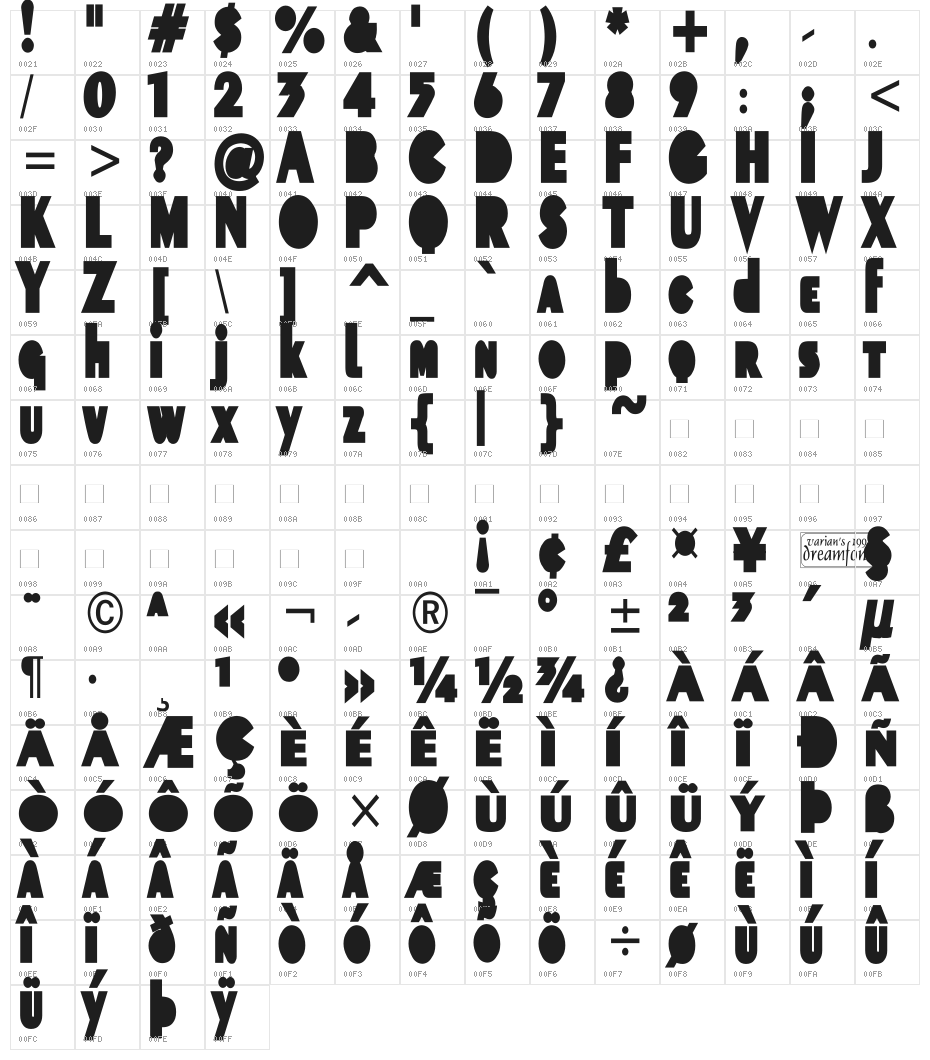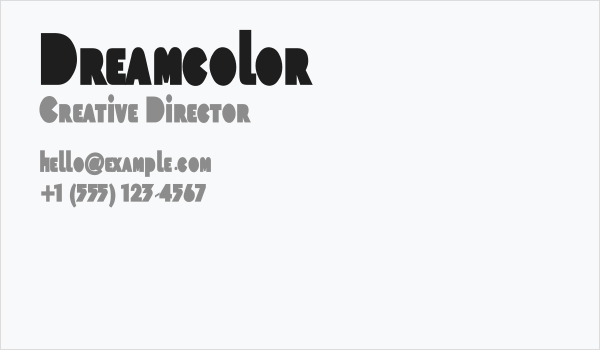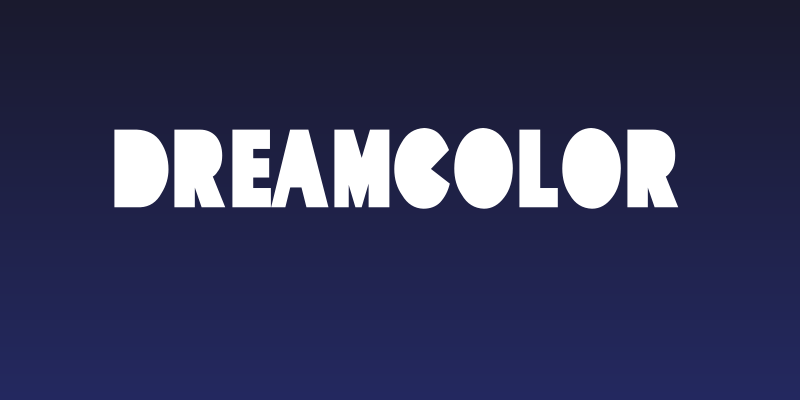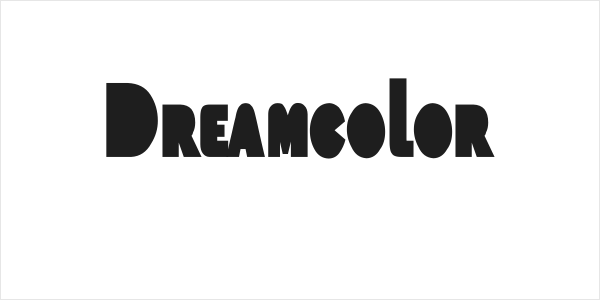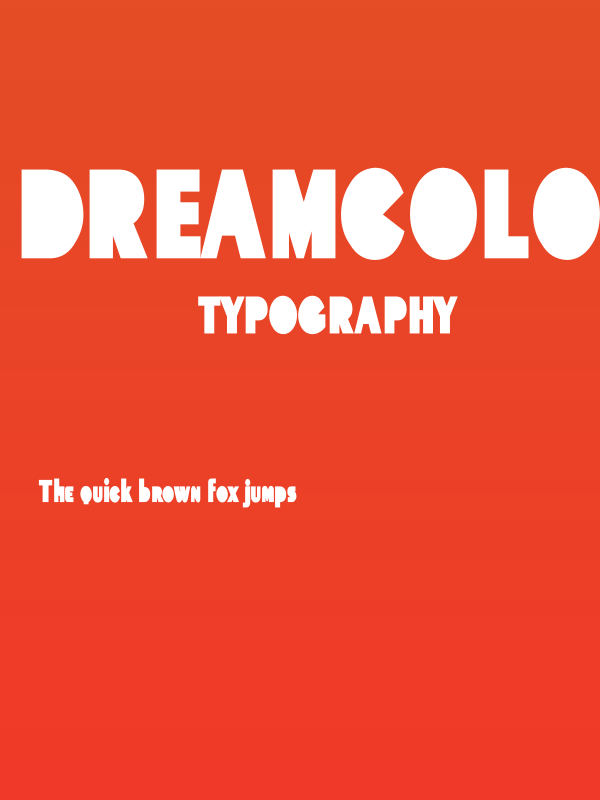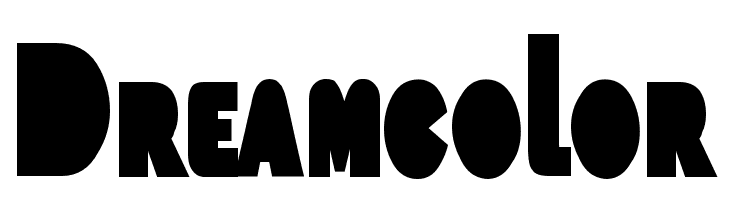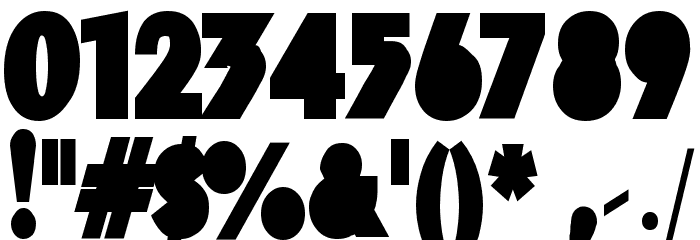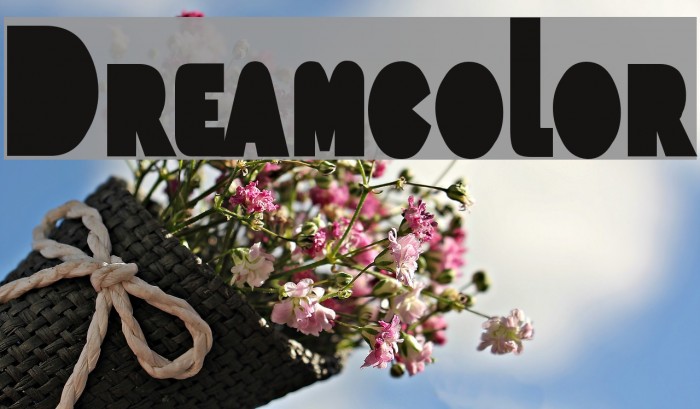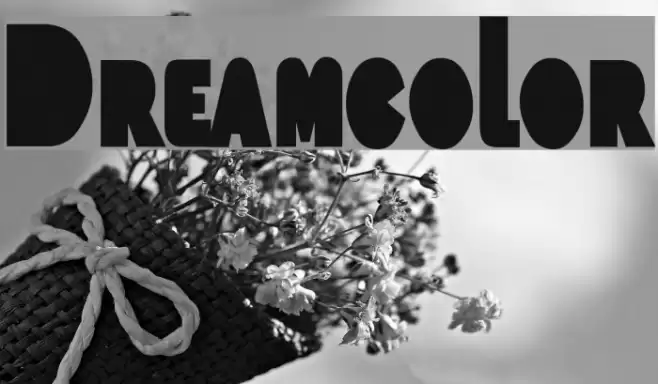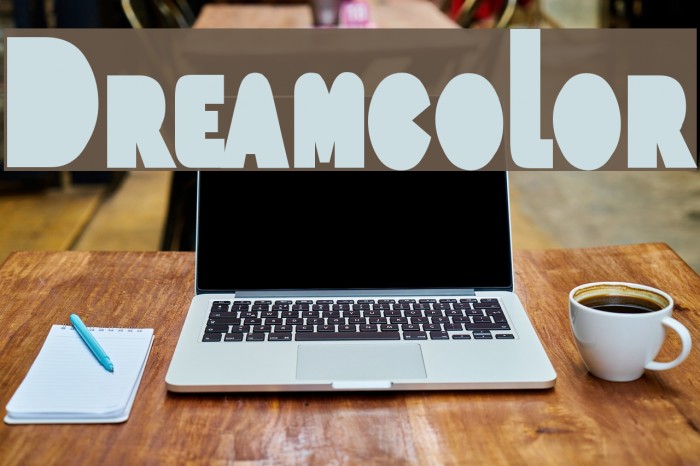
Dreamcolor Font
Dreamcolor Description
This bold and striking font features thick, geometric letterforms with a strong presence. The uppercase and lowercase characters maintain a consistent weight, creating a cohesive and impactful look. The numbers and special characters follow the same bold style, ensuring uniformity across all elements. The font's design is characterized by its solid, block-like appearance, making it ideal for attention-grabbing headlines and statements. Its boldness is complemented by a slight angularity in certain letters, adding a touch of modern flair. The overall style is both contemporary and retro, reminiscent of mid-20th-century design aesthetics.
| Overall Style | Modern, Retro |
| Proposed Projects | Perfect for posters, branding, advertising, and any project needing a bold statement. |